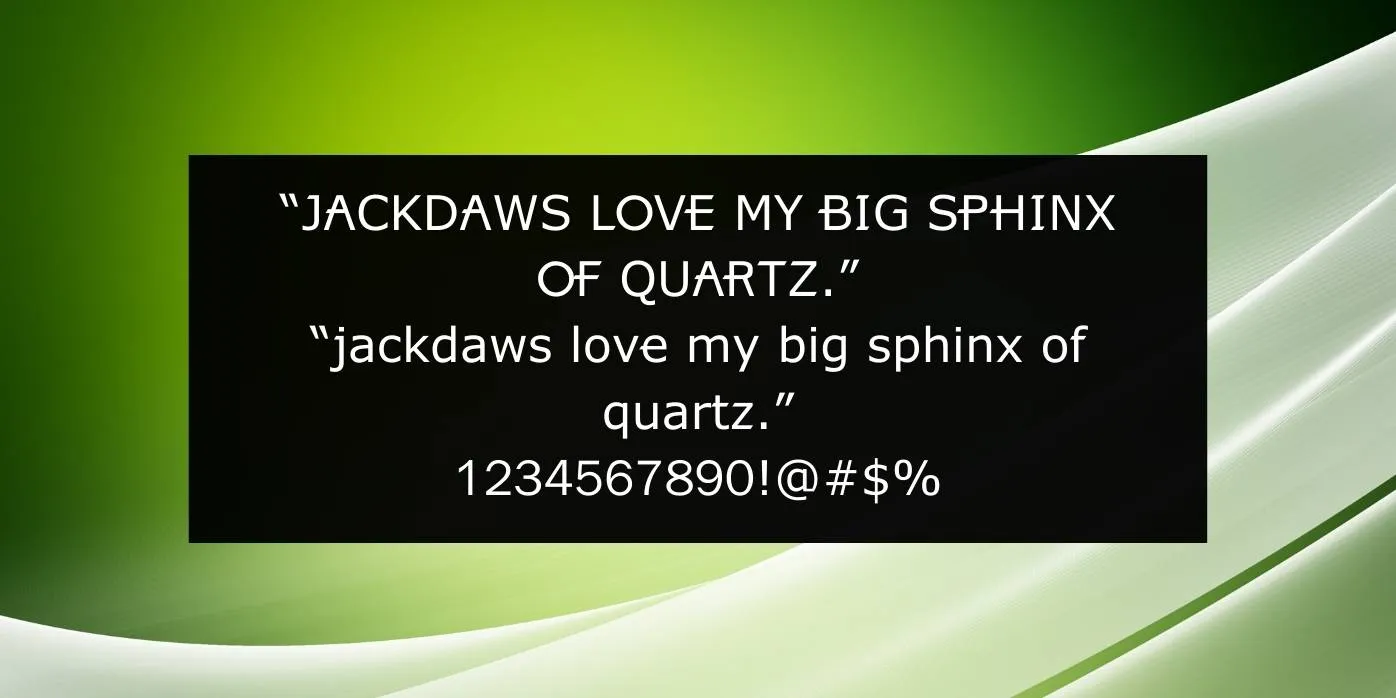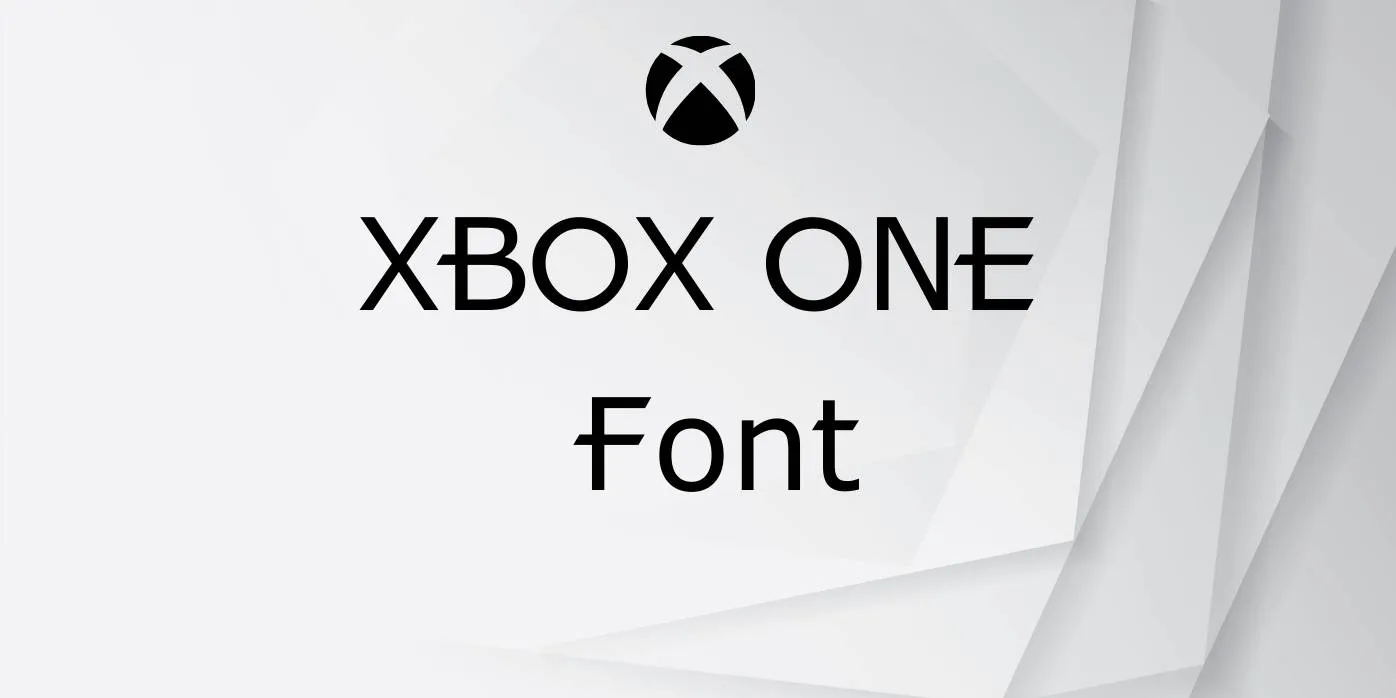
Xbox One Font
Xbox One Font is the default font on the Xbox One console. The font was created by Microsoft and released with the Xbox One in 2013. This font has been used for everything from system menus to game HUDs. The font is a sans-serif typeface and includes regular, bold, and italic styles.
The Font was designed to be legible and easy to read at a distance. The font includes uppercase and lowercase letters, numbers, and symbols. The Font is used in all system menus, including the home screen, settings menu, and game library. The Xbox One Font is a sans-serif typeface.